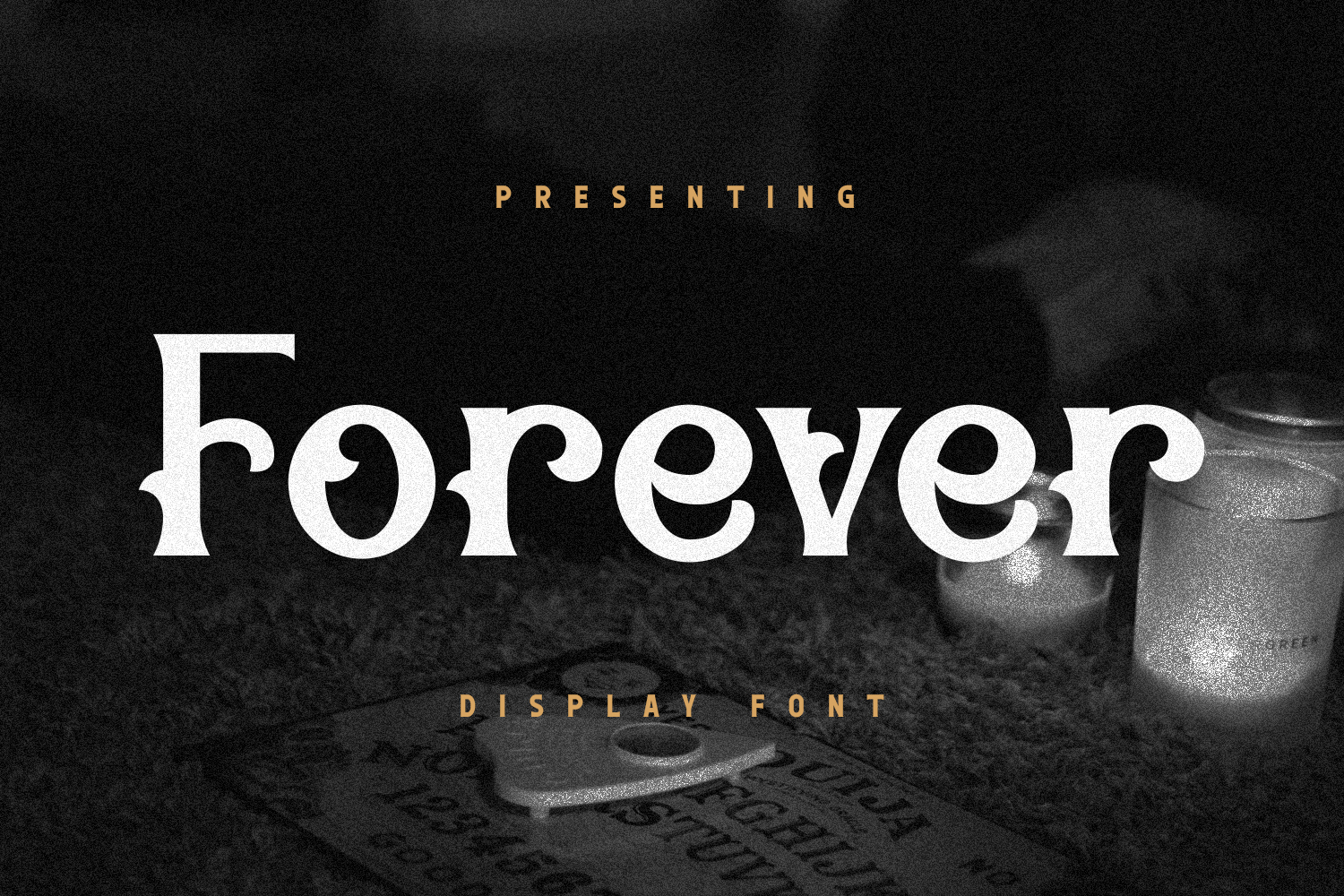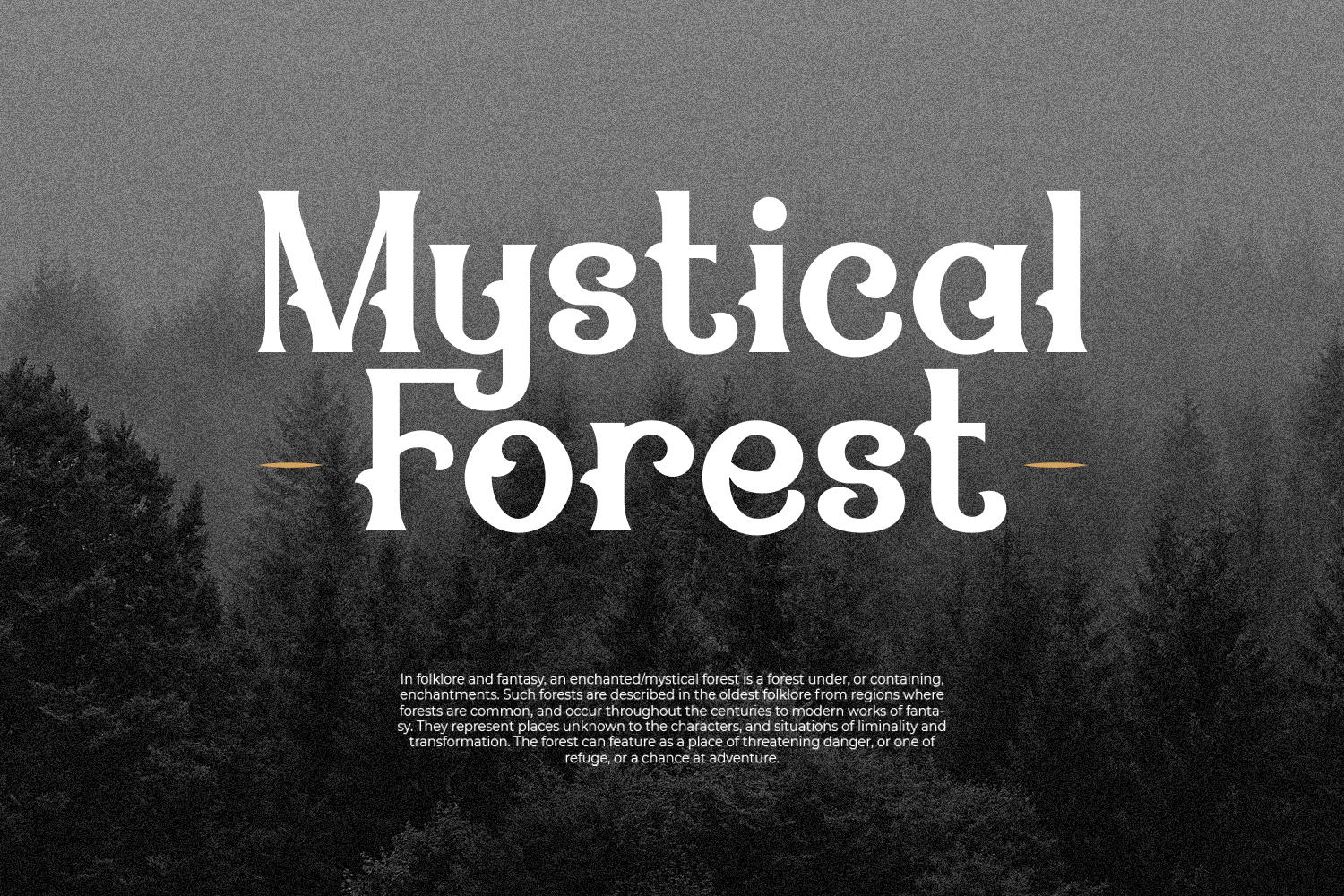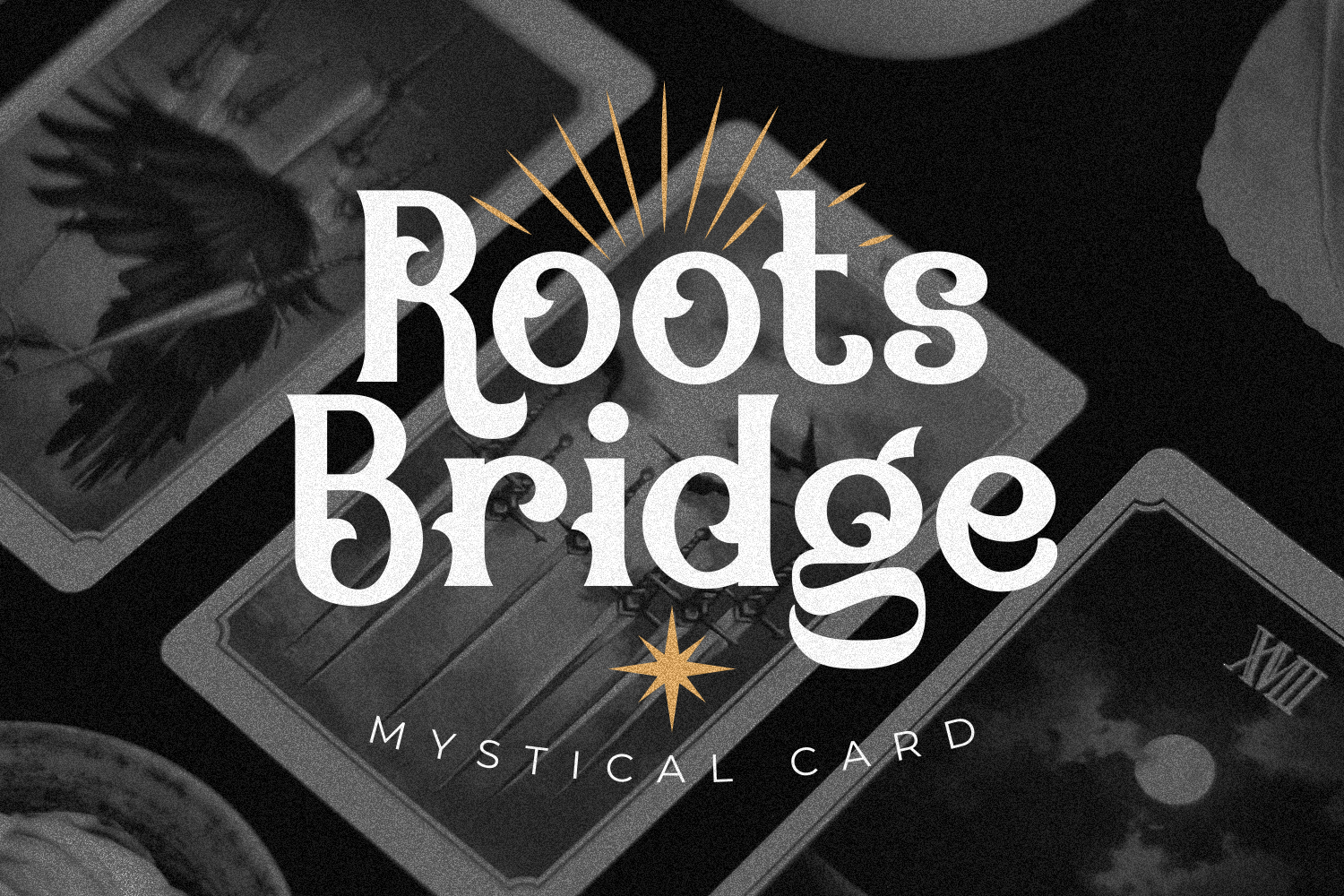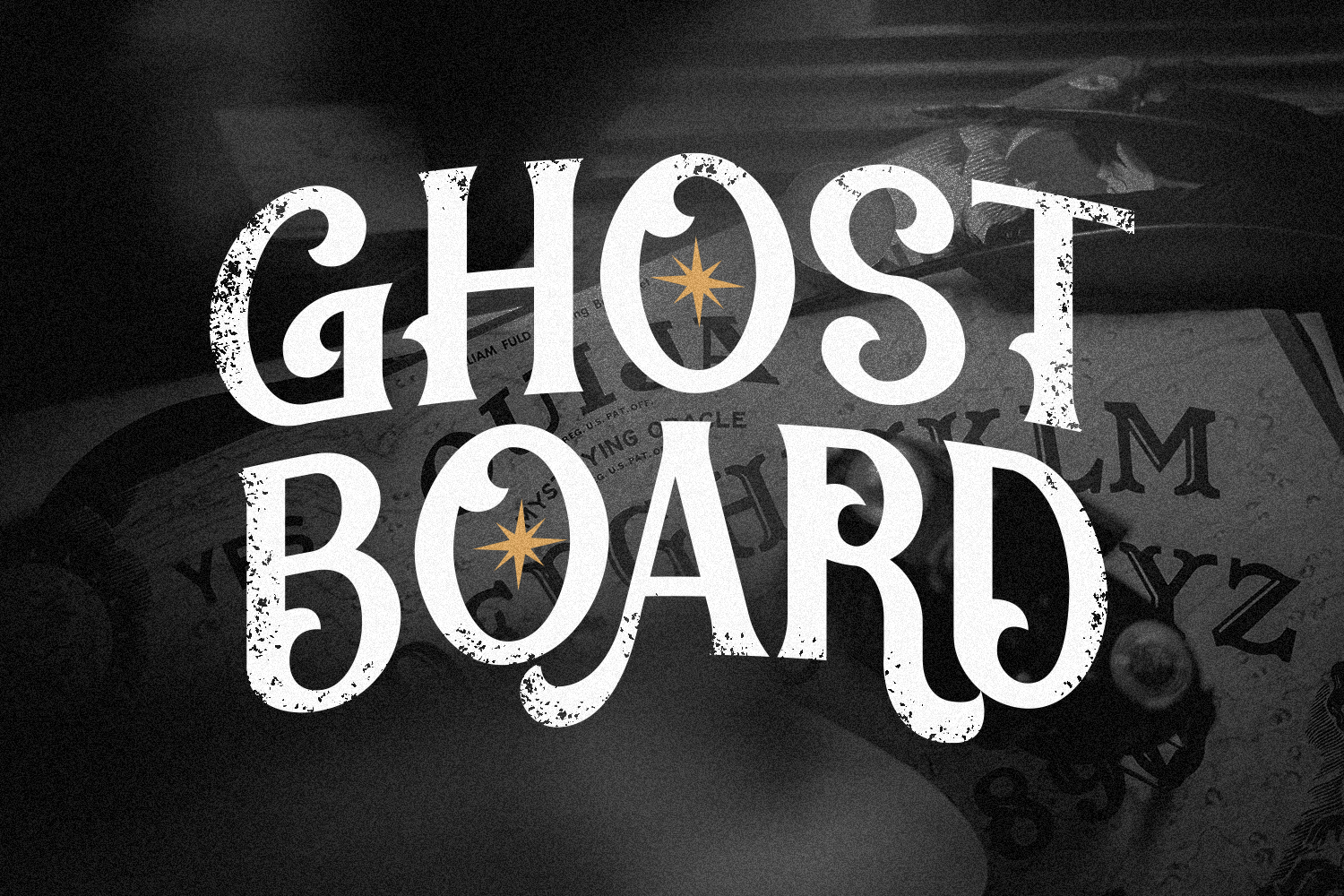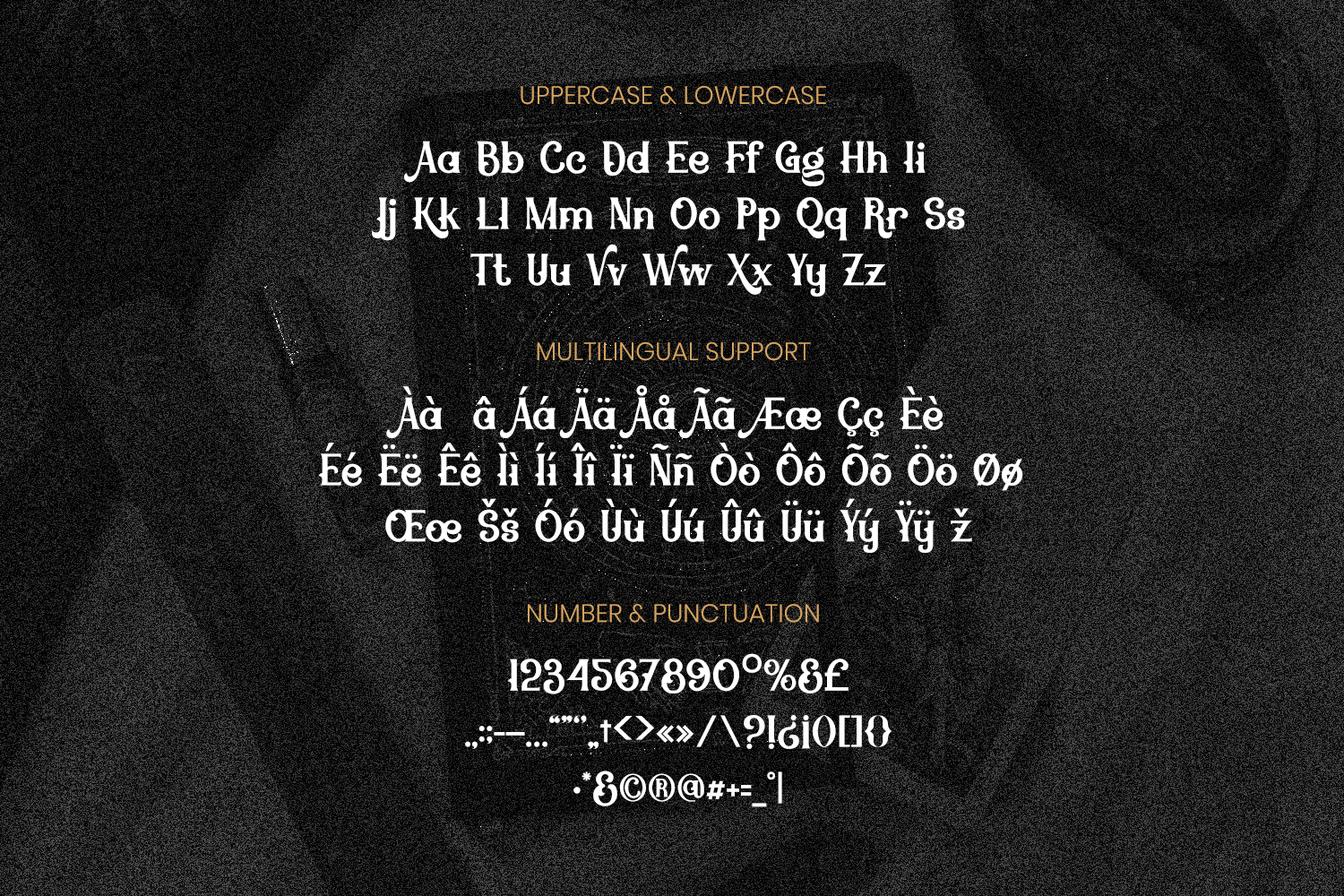
Introducing Forever, a hauntingly elegant display font that blends gothic undertones with modern typographic flair. With its sharp serifs, unique curves, and dramatic contrast, Forever evokes a mystical and timeless atmosphere, perfect for supernatural themes, dark fantasy projects, and mysterious branding. Each character carries a sense of intrigue, reminiscent of tarot cards, old forest legends, and spiritual rituals.
Forever includes uppercase, lowercase, punctuation, numerals, and multilingual characters, making it highly versatile for various design needs. Whether used in book covers, movie posters, packaging, or event titles, this typeface delivers an unforgettable visual impact. Ideal for anyone seeking to add a touch of magic, mystery, and bold personality to their creative projects.
Forever